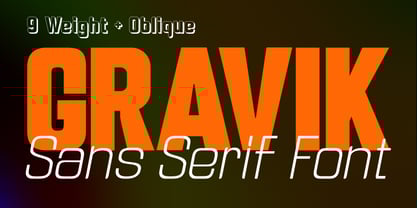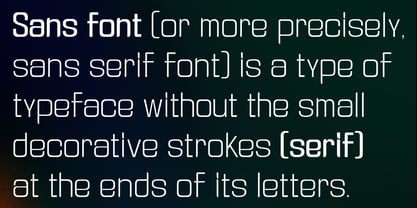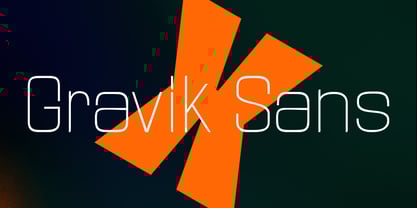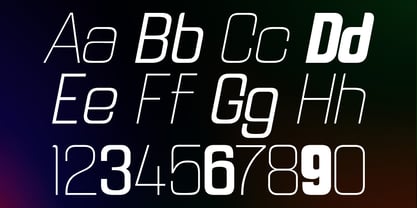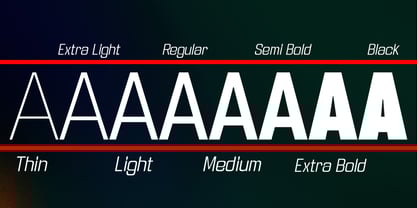
Gravik Sans
by Kaidosan
The Gravik Sans Font Family was designed by Muhammad Ansari and published by Kaidosan. Gravik Sans contains 21 styles and family package options. More about this family
Gravik Sans is a modern sans serif typeface designed with clarity, balance, and versatility in mind. This family offers 9 finely tuned weights, ranging from the ultra-light Thin to the confident Black, giving designers complete control over tone and visual impact. Each weight is complemented by a matching Oblique style, adding a dynamic slant that enhances expression while maintaining perfect legibility. With its clean geometry, refined proportions, and subtle humanist touch, Gravik Sans is ideal for branding, editorial design, digital interfaces, and modern corporate identities. Whether you’re crafting bold headlines or elegant body text, Gravik Sans adapts seamlessly to your creative vision. Features: 9 weights: Thin, Extra Light, Light, Regular, Medium, SemiBold, Bold, ExtraBold, Black Matching Oblique styles for each weight Modern, minimal, and highly legible design Perfect for print and digital use
Designers: Muhammad Ansari
Foundry: Kaidosan